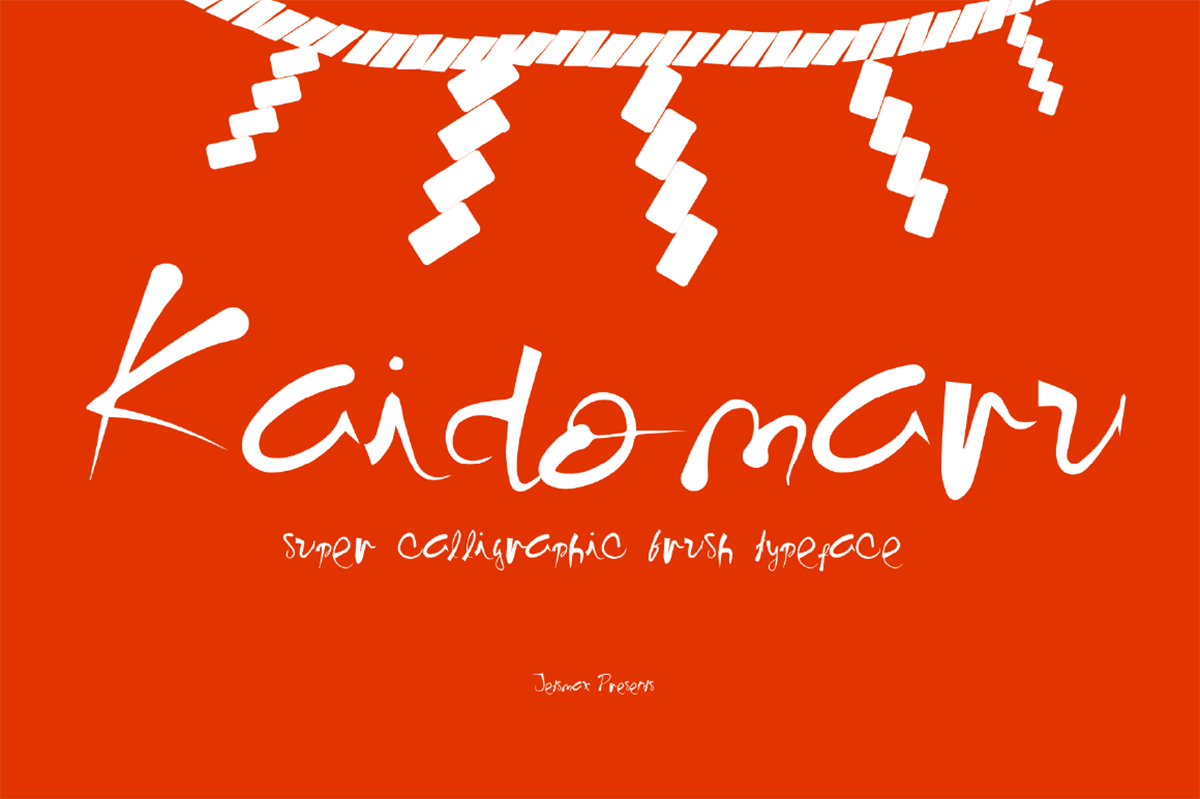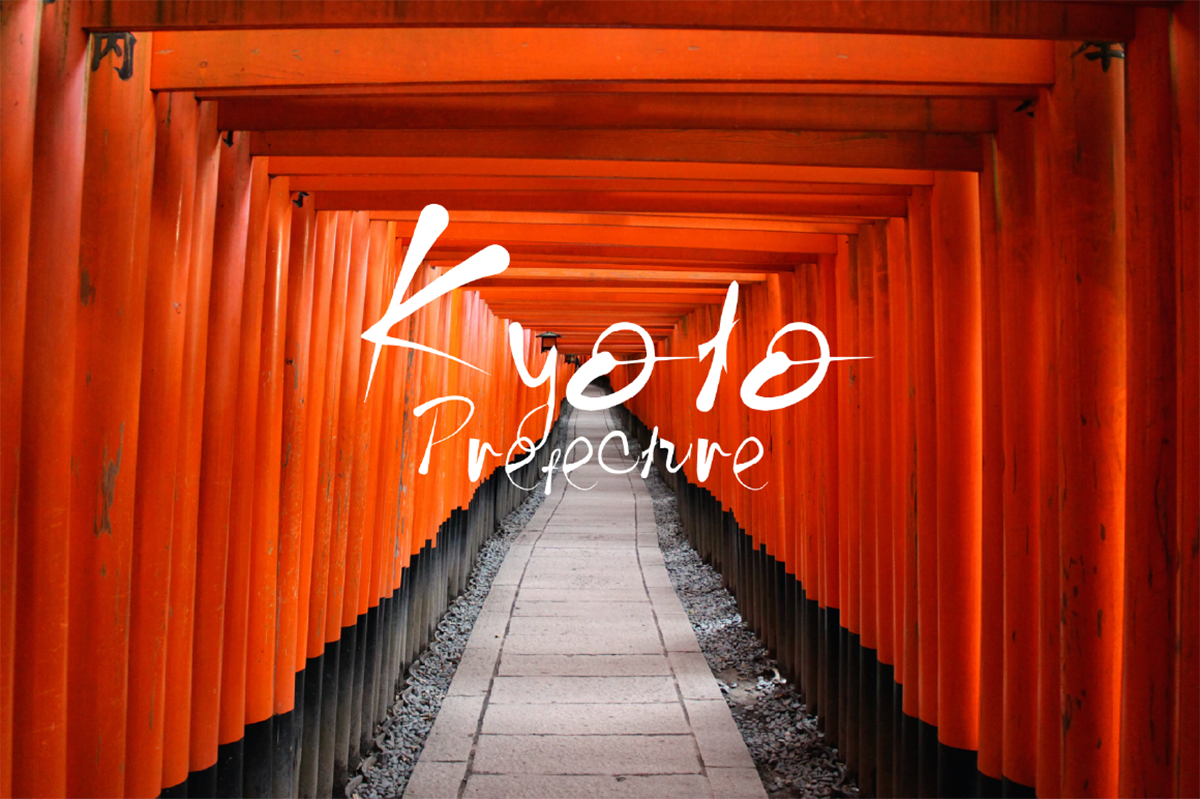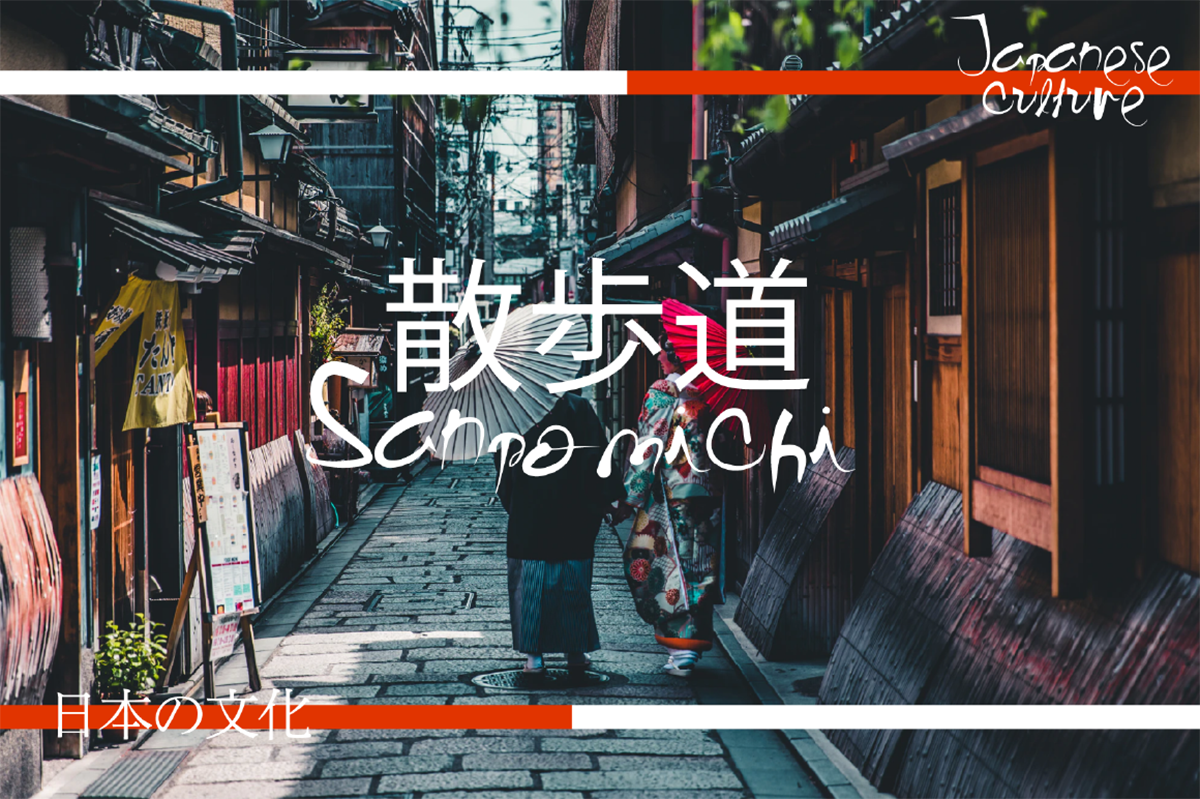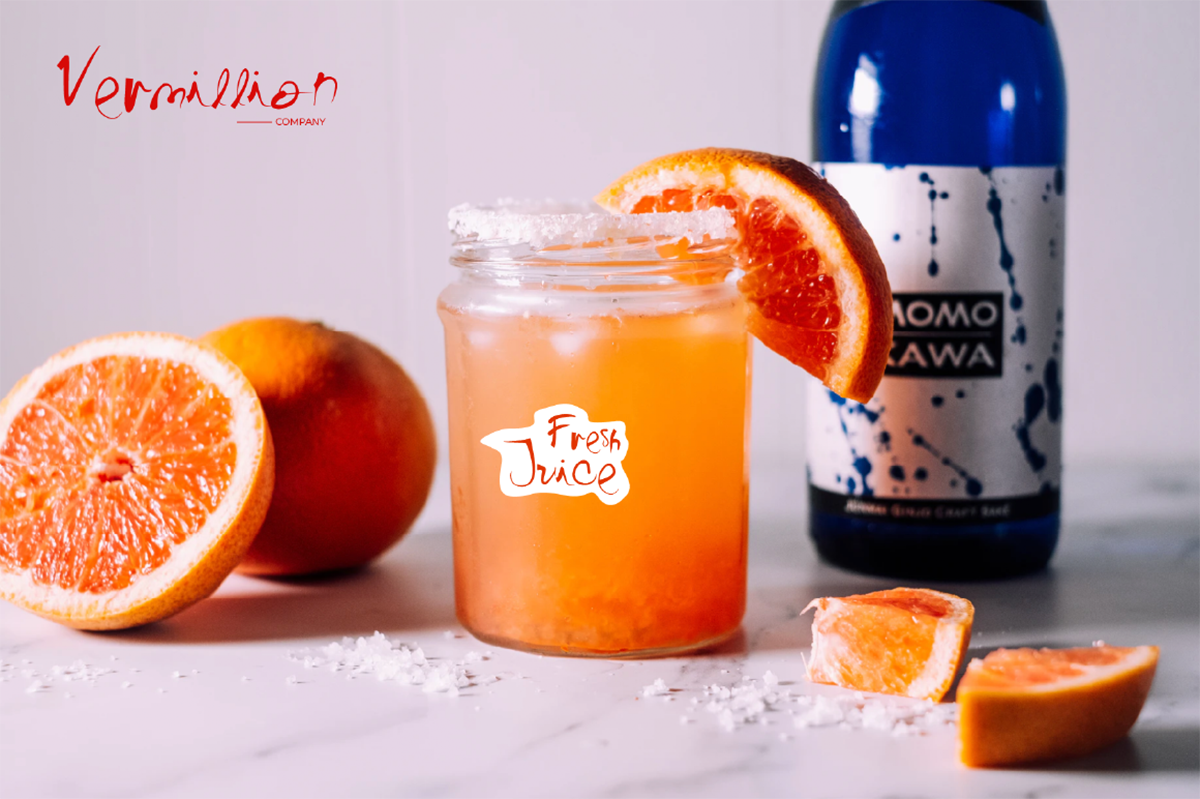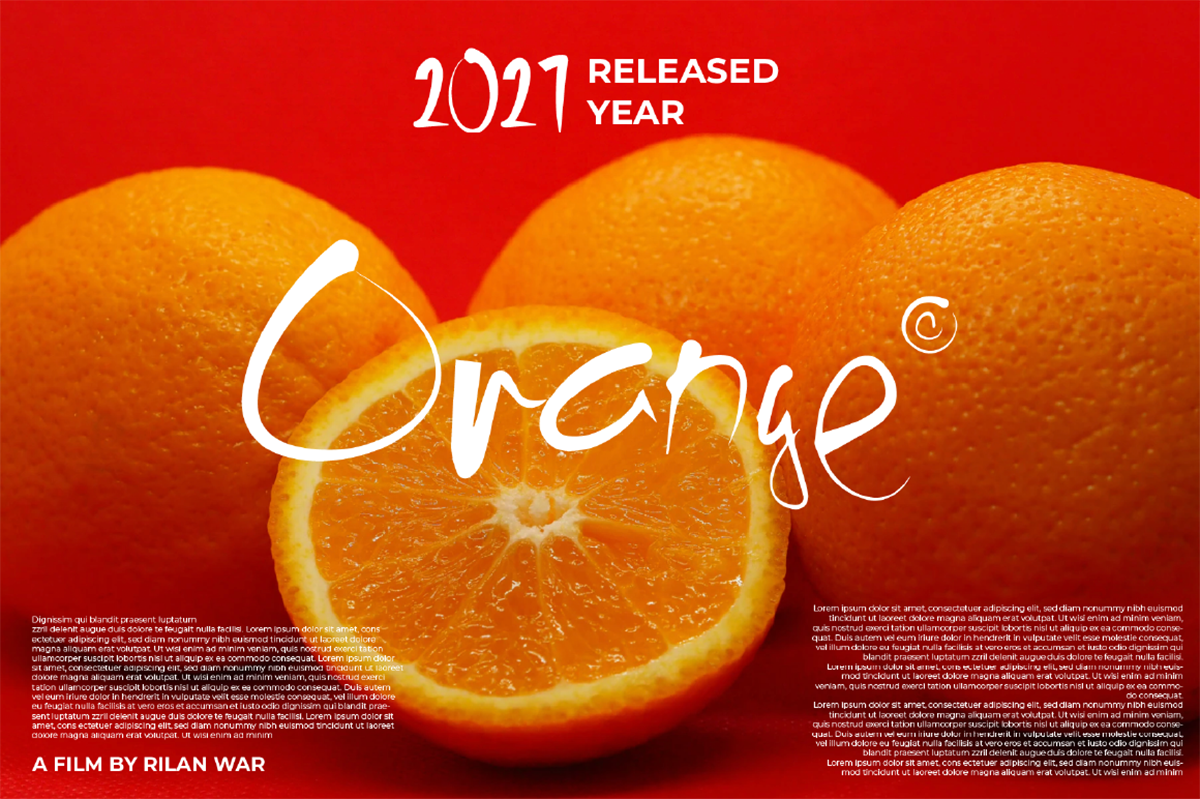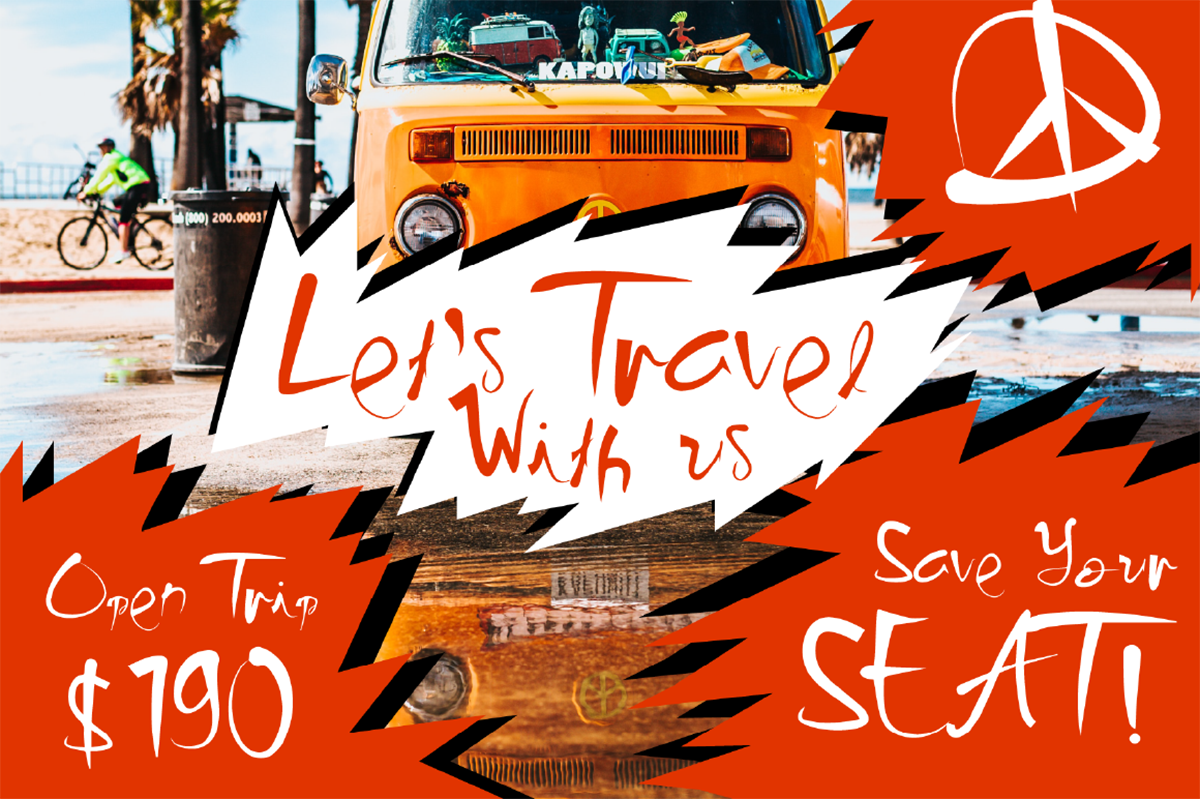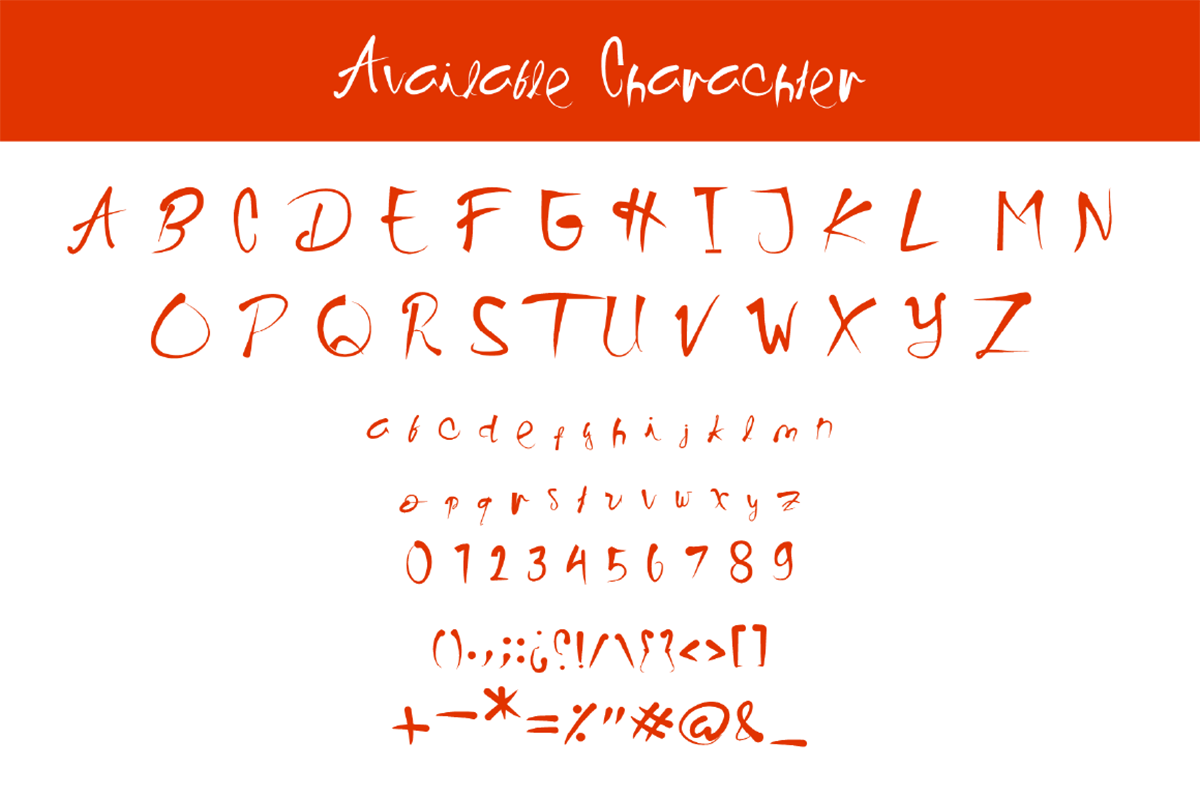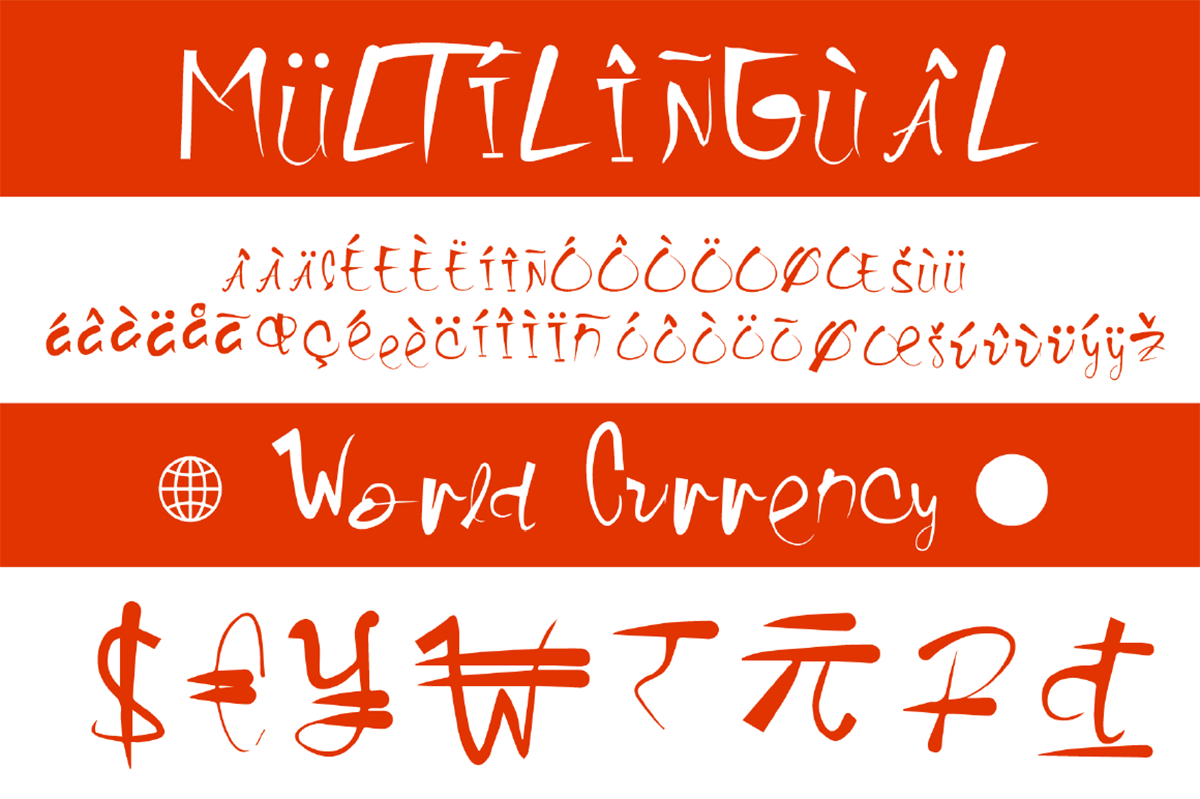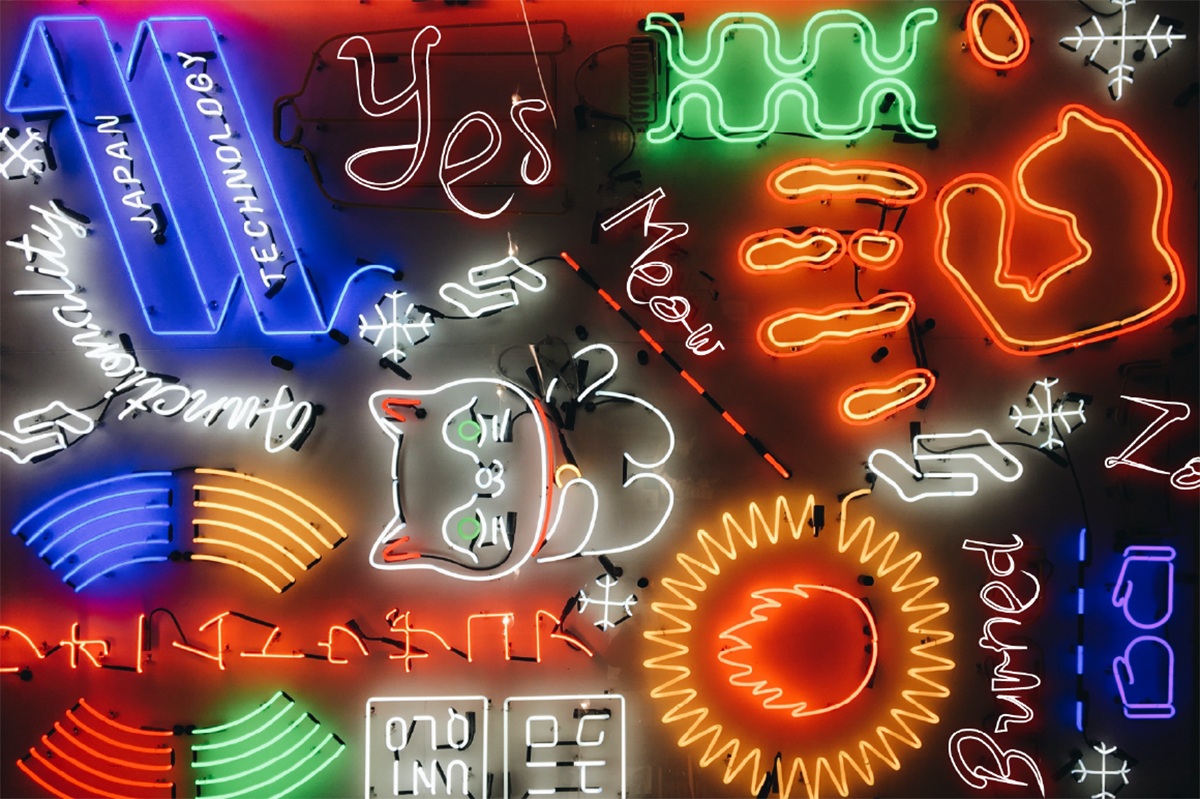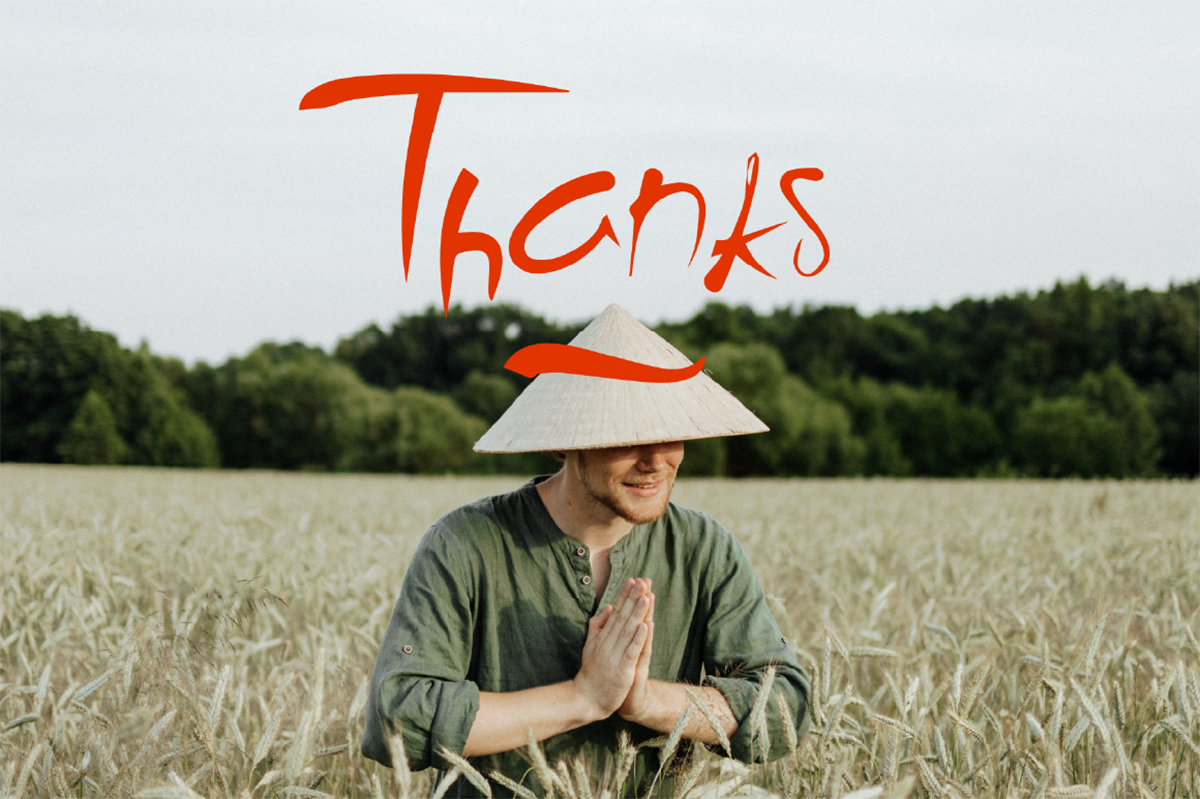
Kaidomaru Free Font
Kaidomaru Free Font is inspired by the authenticity of festivals in Asian culture. This brush type of font will give a thrilling sensation to your design projects. Are you ready to watch the fireworks with Kaidomaru? Kaidomaru Free Font is an authentic brush font that suitable for a variety of branding projects, logos, social media posts, advertisements, and so much more. Let your imagination run free. This free typeface was designed by talented Jetsmax. If you like it don’t forget to check out the full version.